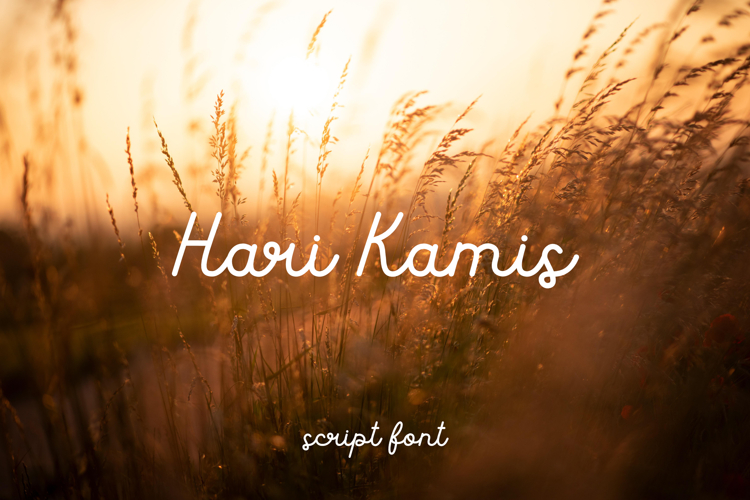
Hari Kamis is a casual script typeface that captures the relaxed energy of a warm sunset. It is perfect to create posters, printed quotes, digital designs, or any projects that require a nice and elegant look!